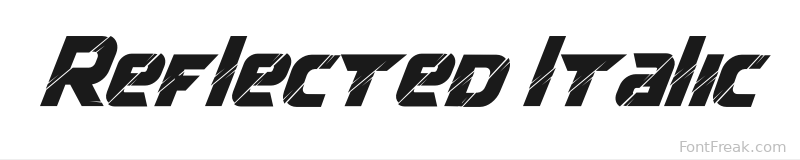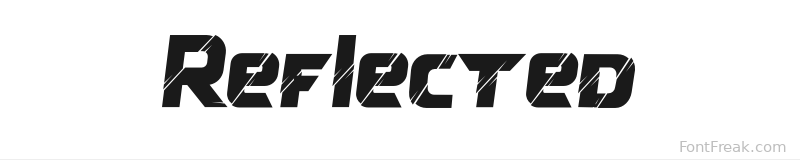
Reflected
Reflected Italic
Reflected by Kong Font is a striking display typeface that commands attention with its unique visual flair. This font falls into the category of decorative typefaces, characterized by its bold italic style that features a dynamic slant. The strokes exhibit a moderate weight, with subtle contrast that enhances readability while maintaining an impactful presence. The spacing is well-considered, allowing for clear legibility in various contexts, while decorative elements throughout the letters add a touch of sophistication and creativity.
This font is particularly well-suited for a range of design applications. Its eye-catching style makes it an excellent choice for movie posters, where it can convey drama and excitement. Additionally, Reflected is ideal for branding projects, especially for businesses in the creative sector, such as art galleries or fashion boutiques. Wedding invitations can also benefit from its elegant flair, providing a contemporary yet romantic touch. Furthermore, restaurant menus that aim to convey a modern aesthetic would find this font fitting, as it can help to create a memorable dining experience for guests.
What sets the Reflected font apart is its ability to blend boldness with elegance, making it suitable for both professional and artistic endeavors. The distinct italicized design captures attention while retaining clarity, ensuring that your message is communicated effectively. For those interested in enhancing their designs, the Reflected font free download offers a fantastic opportunity to incorporate this unique typeface into various creative projects.